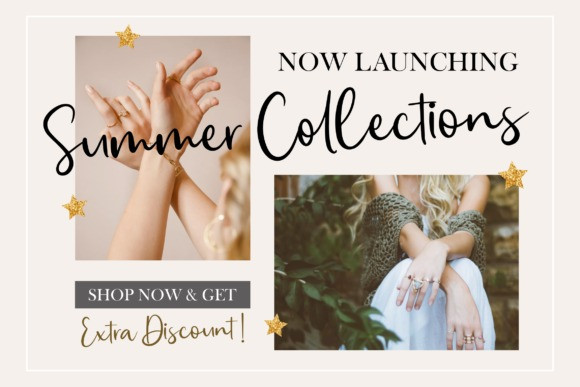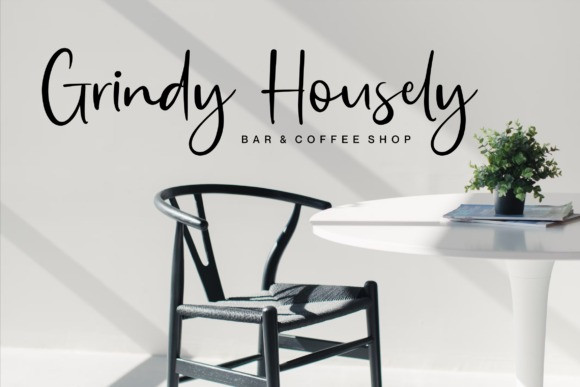
Silagus Handwritten Font
Silagus is a stylish modern calligraphy font it is perfect for branding, wedding invites and cards, and maybe for red wine label. Silagus Modern Calligraphy features a gorgeous handwritten style that infuses this beautiful script with authenticity and charm!